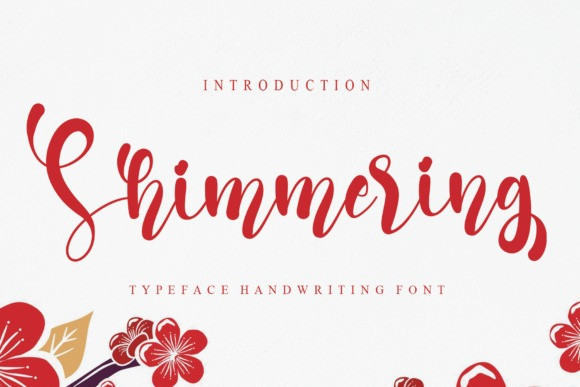
Shimmering Calligraphy Font
Shimmering is a lovely, chic, and round lettered script font. It looks beautiful on a variety of designs requiring a personalized style, such as wedding invitations, thank you cards, weddings, greeting cards, logos and so on.